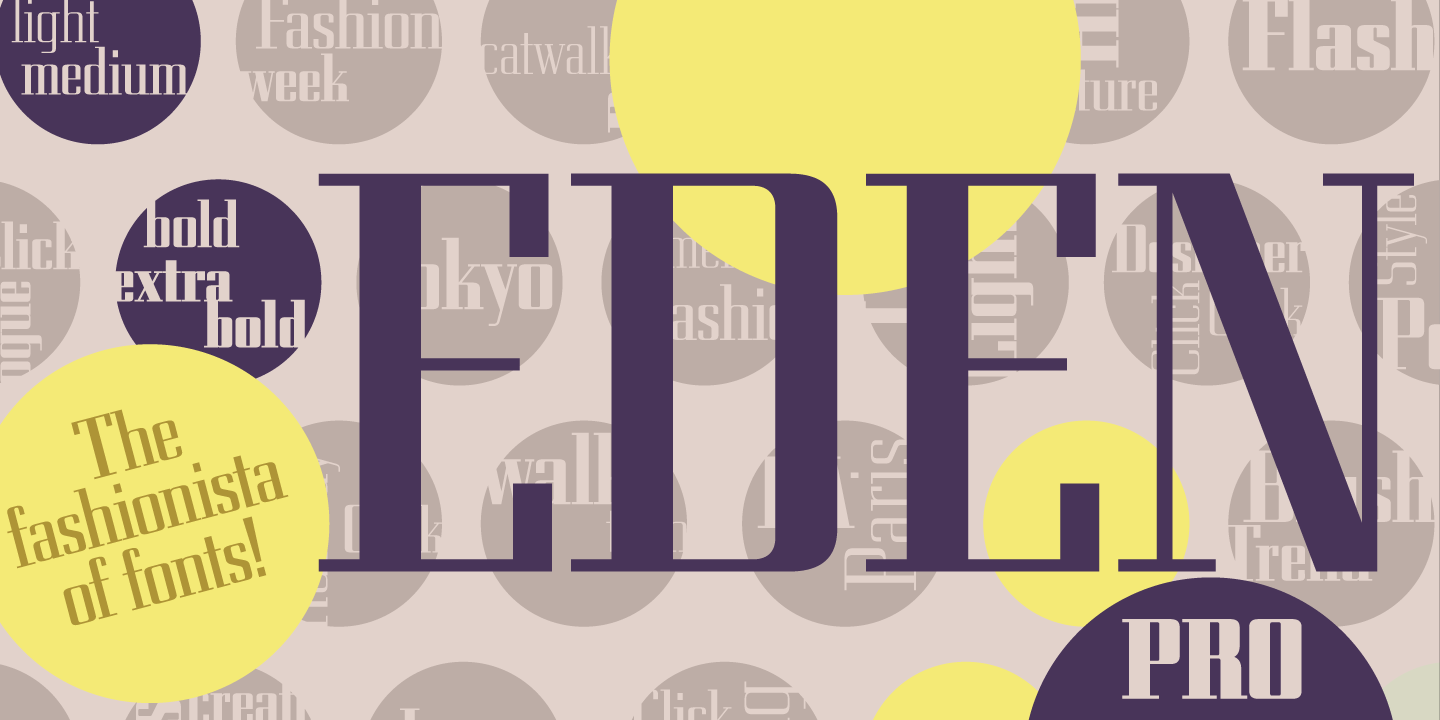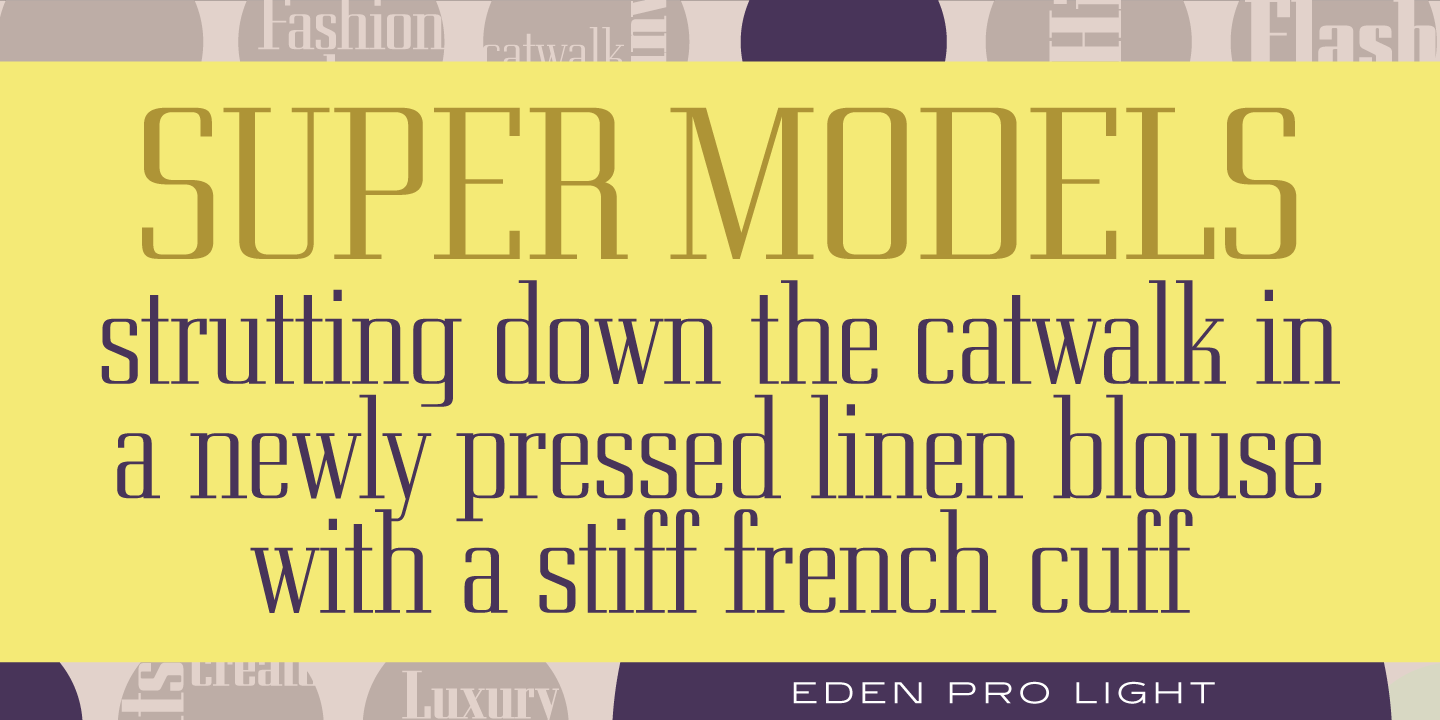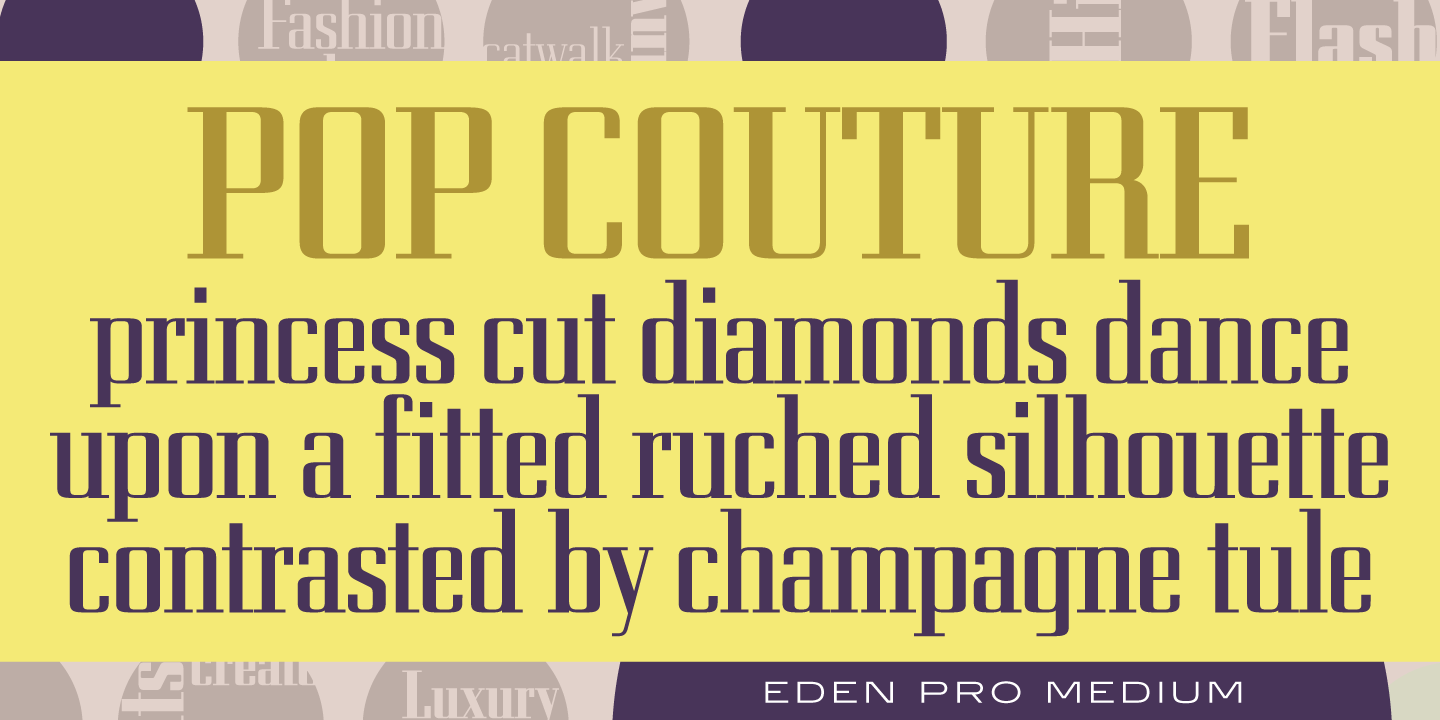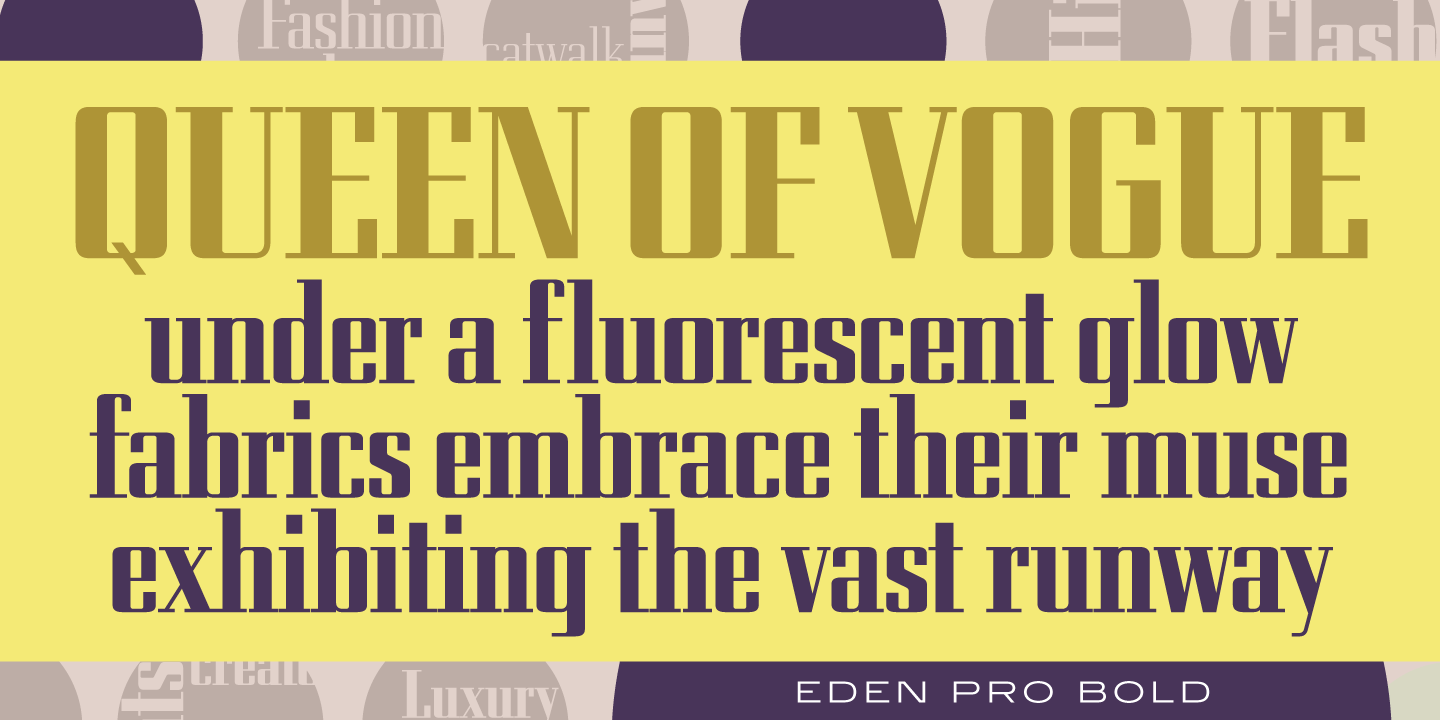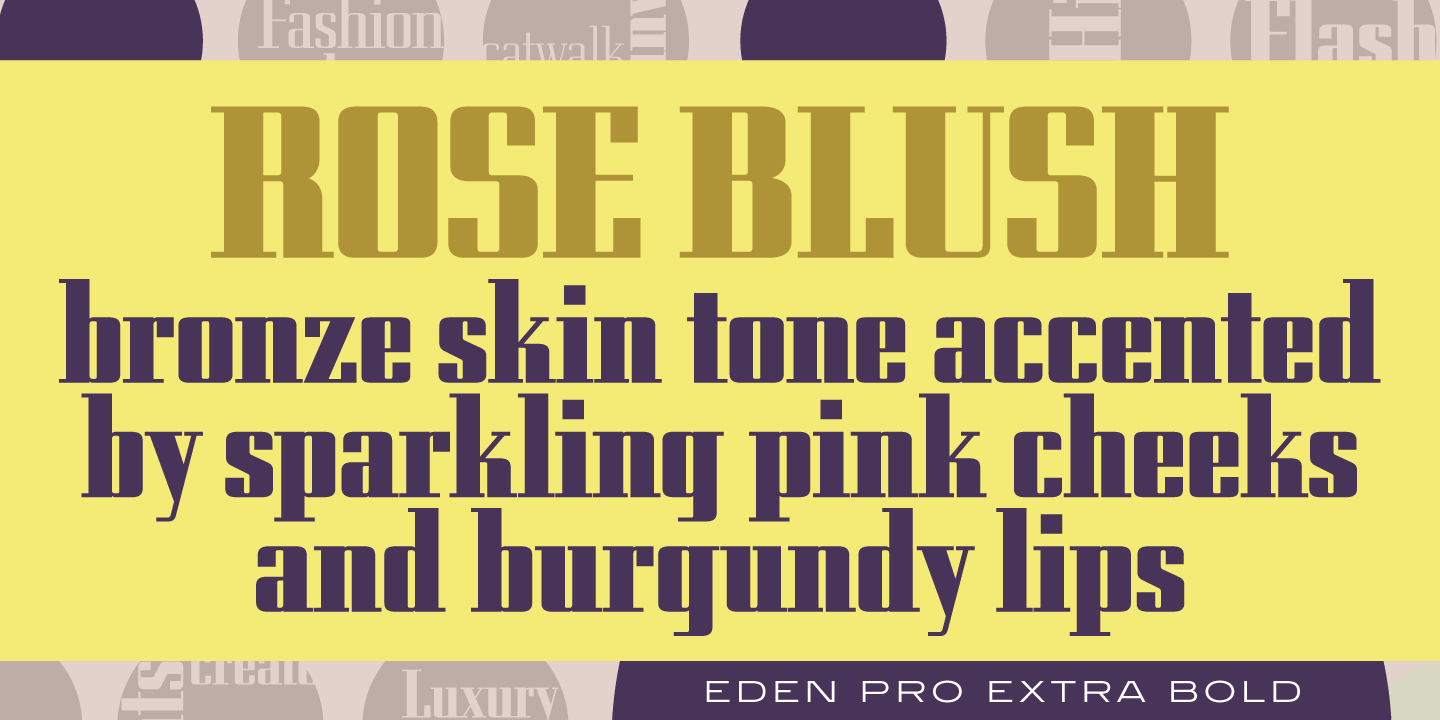
Eden Font Family
Eden is a geometric serif family, exclusively licensed from the Ludlow Collection. It was created and produced by Steve Jackaman (ITF) and Ashley Muir in 2010, and was based on the original 1934 Ludlow drawings by Robert H. Middleton. Jackaman and Muir redrew the family and created two additional weights to round it out. Eden has a fashionable, modern look that is clean and legible at all sizes. The new updated version supports Latin 1 and Central/Eastern European languages.
Part of the Ludlow Collection
• Czech
• Latvian
• Polish
• Slovak
OpenType Features
• Common Ligatures
• Fractions
• Ordinal Numerals
• Stylistic Alternates
• Stylistic Sets
• Subscript
• Superscript